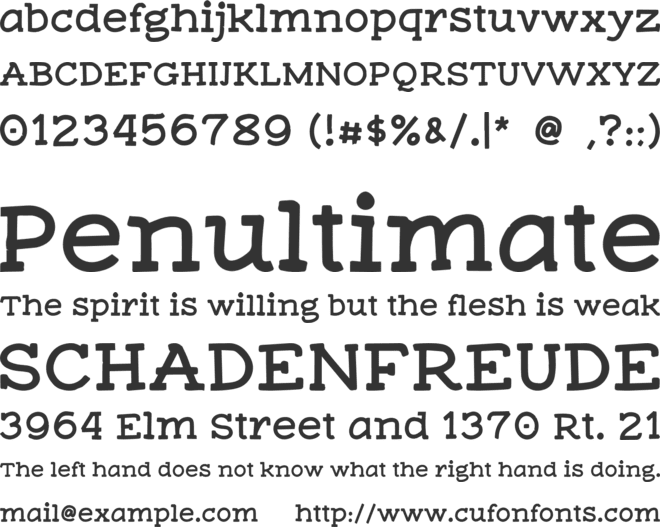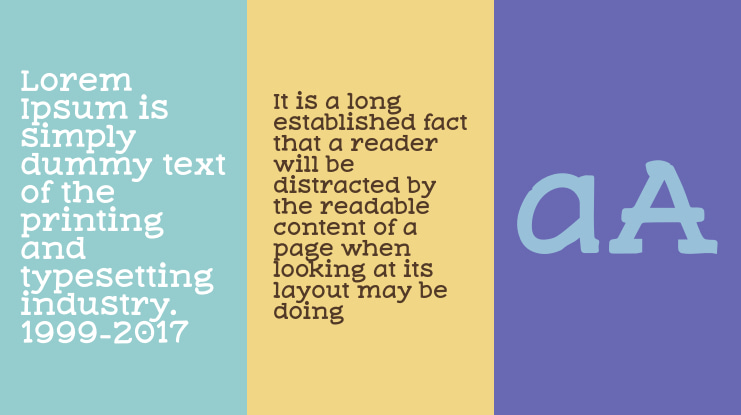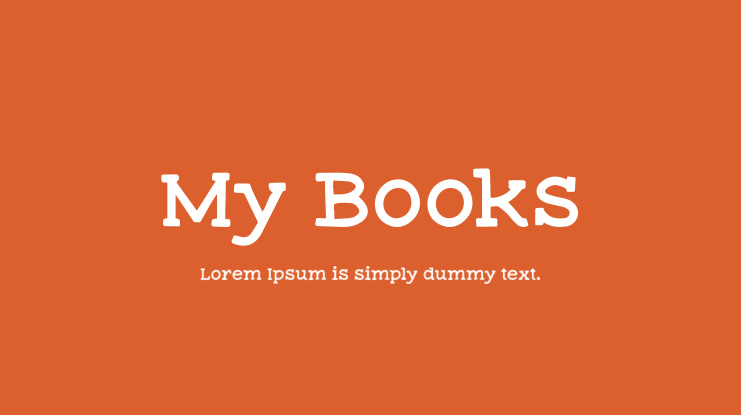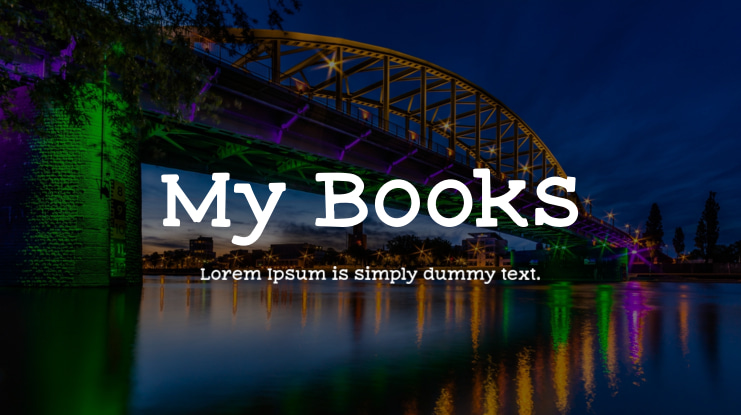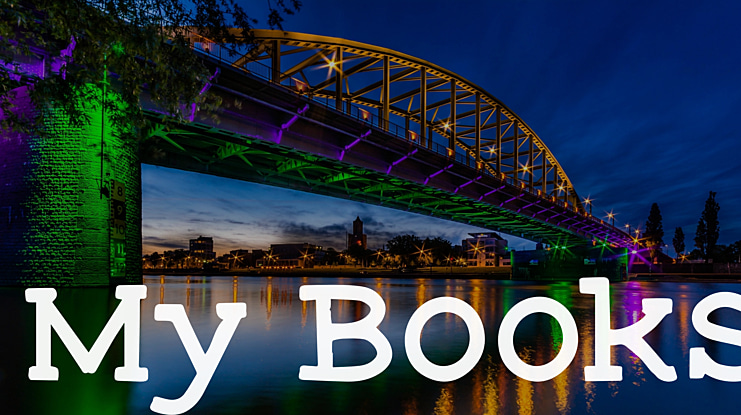
My Books Font
Introducing My Books Font! This one is a casual handwritten font with natural stroke. This font will be perfect for notes, product descriptions, headlines, product paragraphs, logos, branding, and many more.